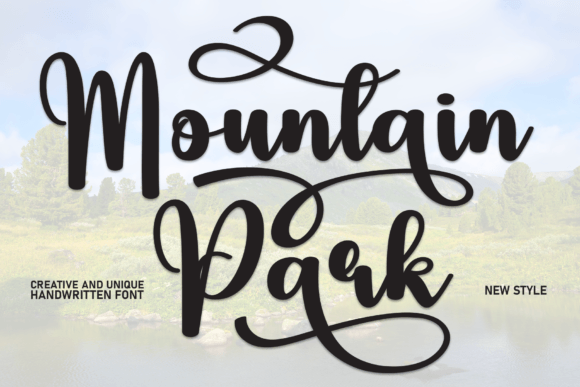
**Mountain Park Font: A Journey Through Enchanting Script**
In a world where digital expression reigns supreme, your choice of font holds the power to transform your designs into captivating masterpieces. Step into the realm of Mountain Park Font, an exquisite handwritten script that dances across your screens with elegance and grace.
Crafted by the visionary minds at andikastudio, Mountain Park Font is a breathtaking fusion of classic calligraphy and modern aesthetics. Its alluring curves and delicate strokes evoke a sense of timeless sophistication, while its contemporary sensibilities keep it fresh and relevant.
With Mountain Park Font, you'll have the power to craft captivating logos, alluring social media graphics, and stunning website designs that leave a lasting impression. Watch as your words come alive, imbued with a touch of artistry that will capture the hearts of your audience and leave them spellbound.
**A Font for Every Occasion:**
The versatility of Mountain Park Font knows no bounds. It seamlessly adapts to a myriad of design projects, becoming an invaluable asset in your creative arsenal. Whether you're a seasoned designer seeking a touch of elegance or a novice seeking an effortless way to elevate your designs, Mountain Park Font is your perfect companion.
Let your imagination soar as you weave enchanting invitations, design eye-catching posters, and create social media posts that demand attention. With Mountain Park Font as your secret weapon, you'll effortlessly transform your creative visions into tangible realities.
**A Symphony of Aesthetics:**
Mountain Park Font is a symphony of aesthetics, a harmonious blend of classic and modern elements that will elevate your designs to new heights. Its elegant flourishes and intricate details add a touch of timeless charm, while its clean lines and contemporary vibe keep it relevant and visually appealing.
Immerse yourself in a world of creative possibilities, where your imagination is the only limit. With Mountain Park Font by your side, you'll craft designs that speak to the soul, leaving an indelible mark on the hearts of your audience.